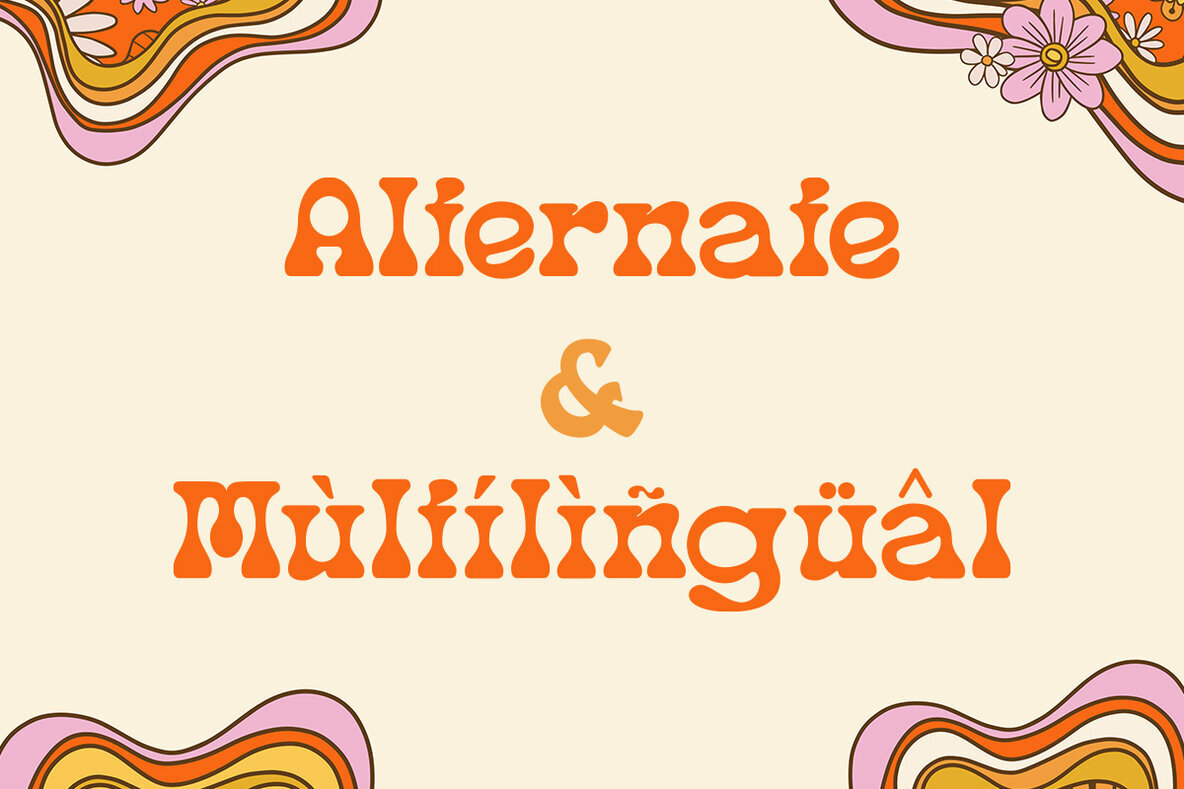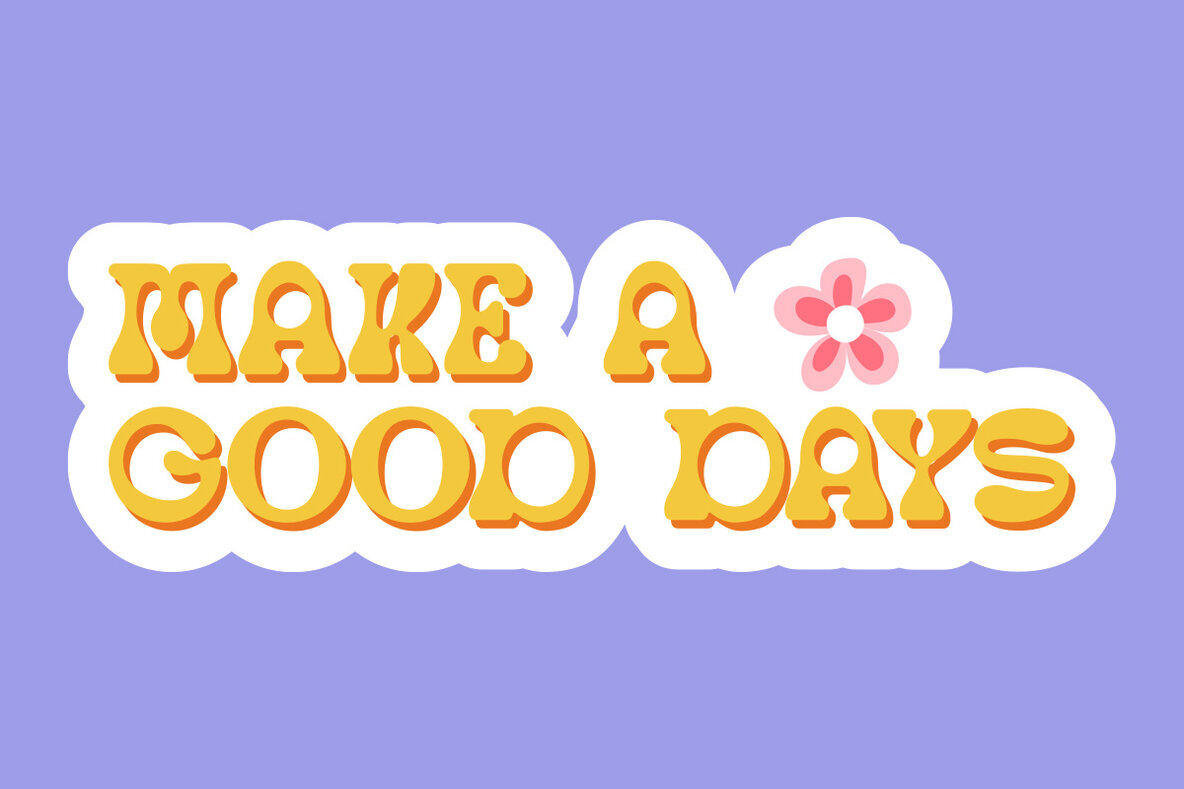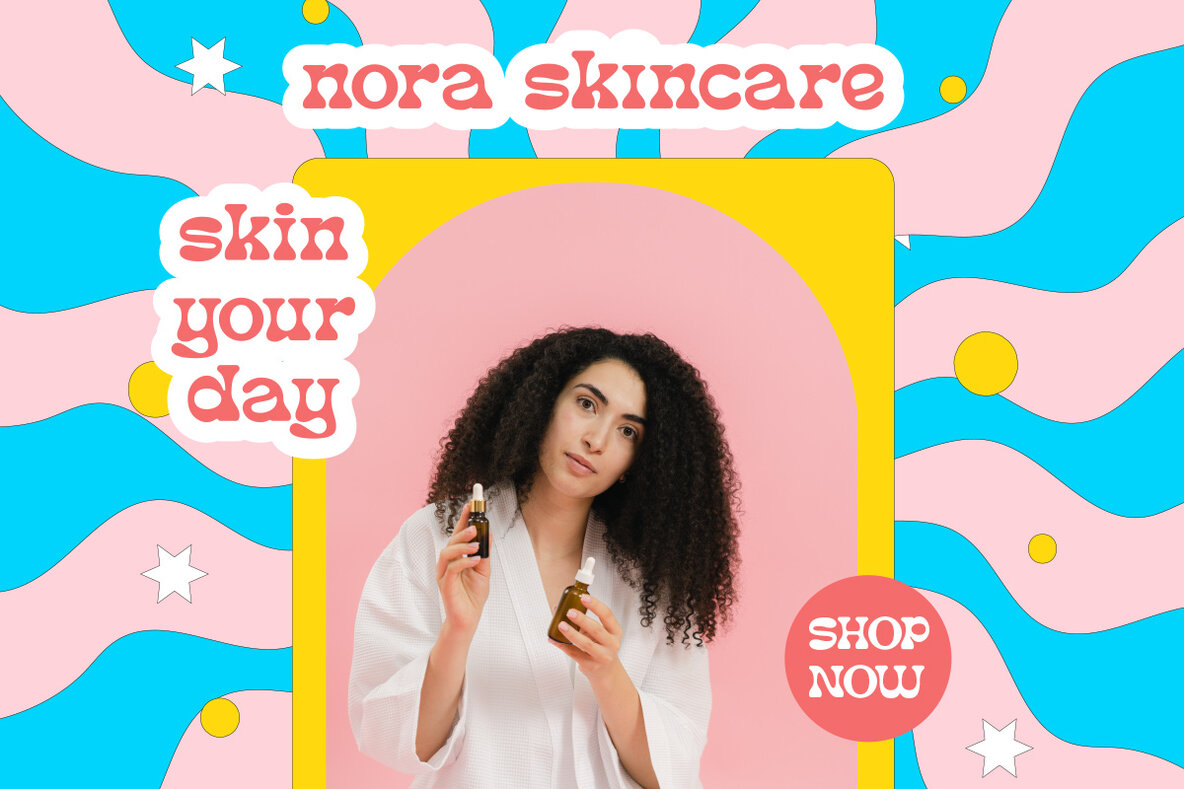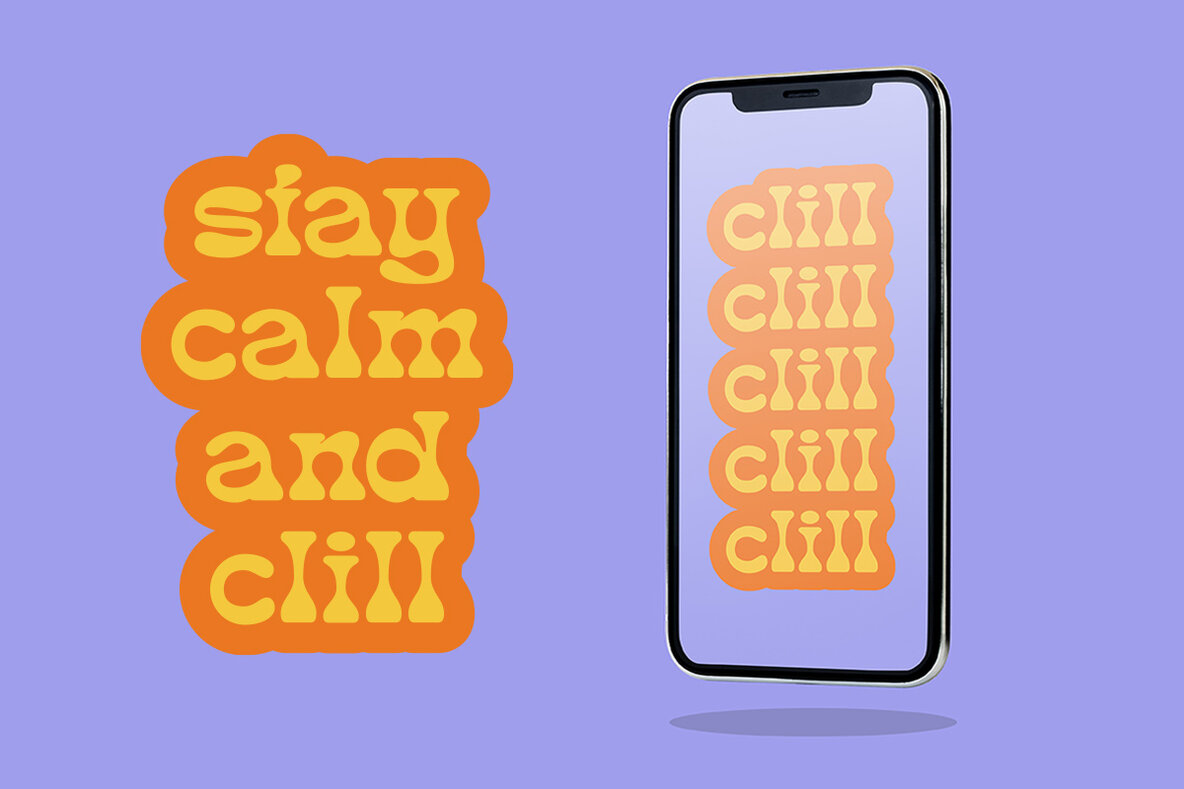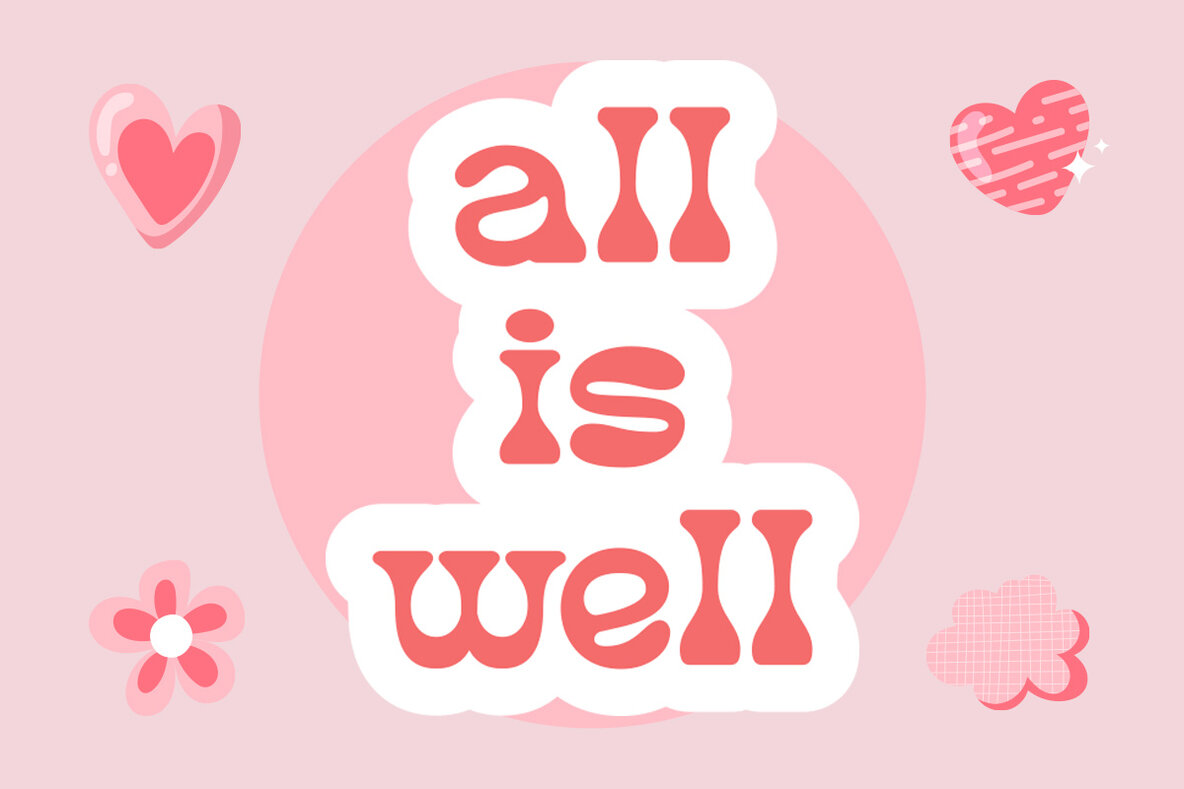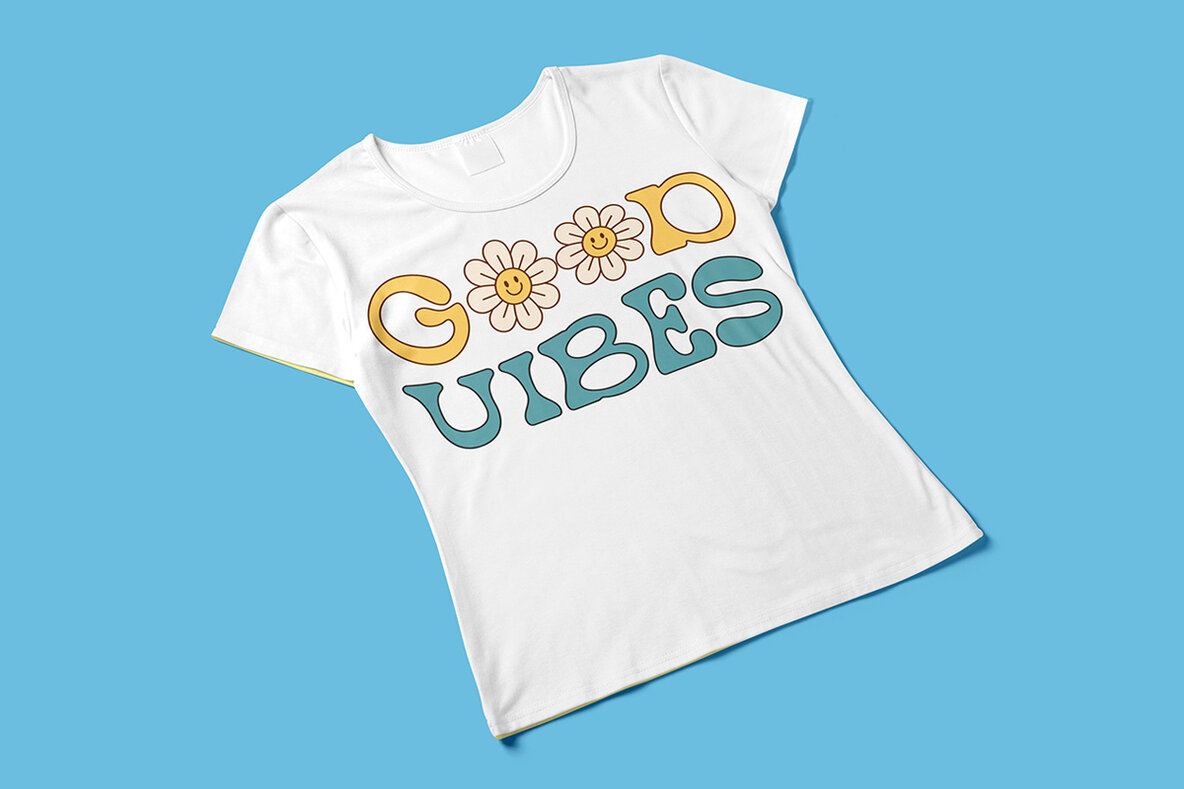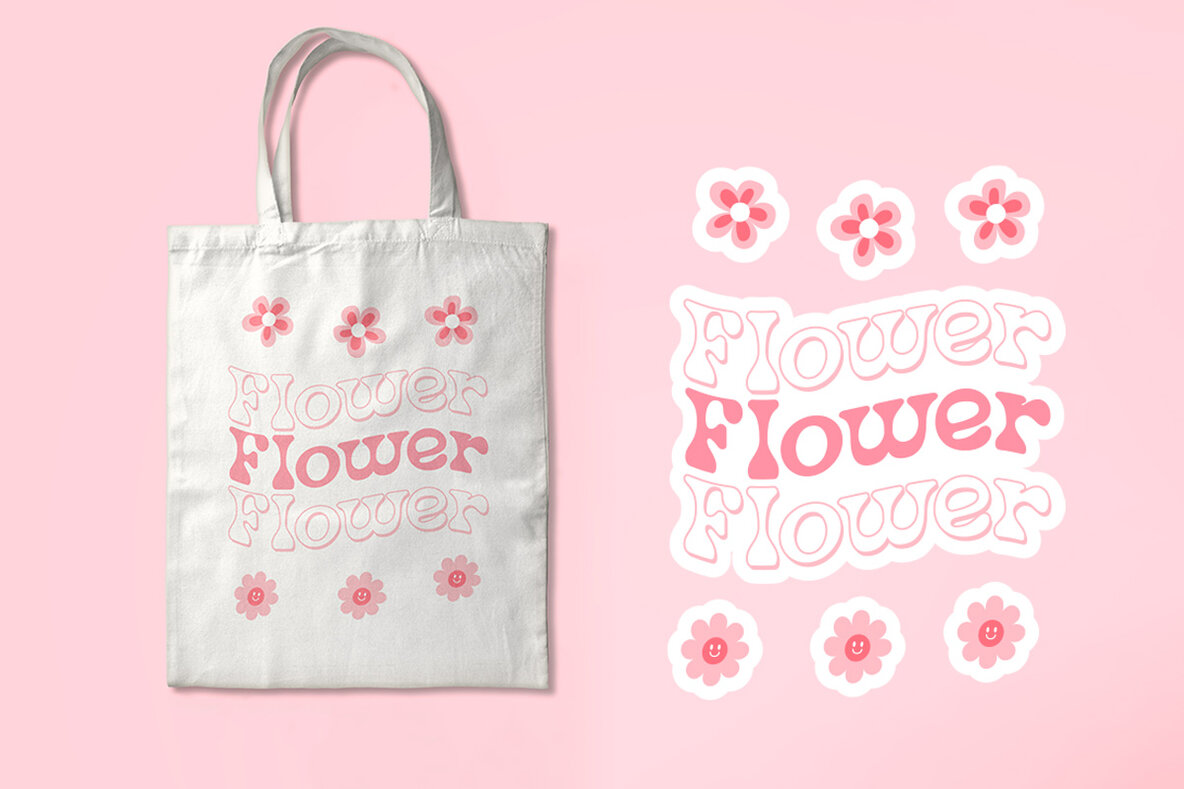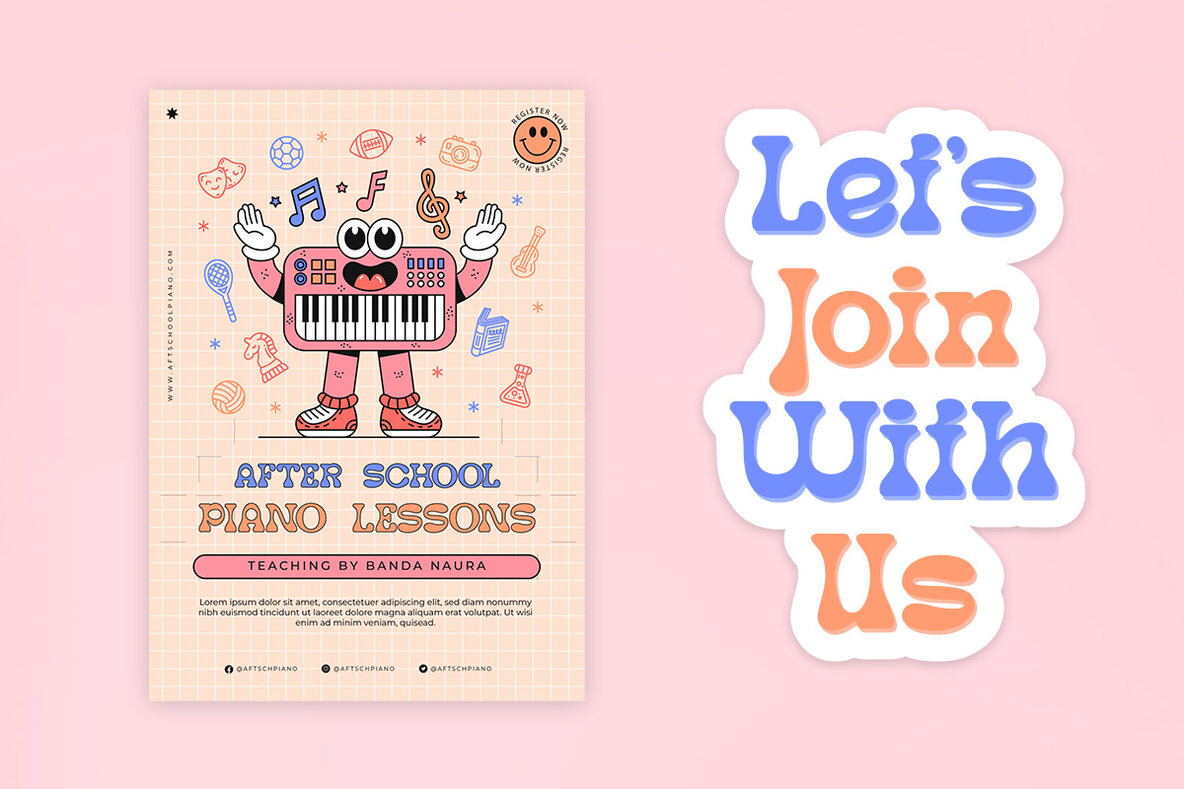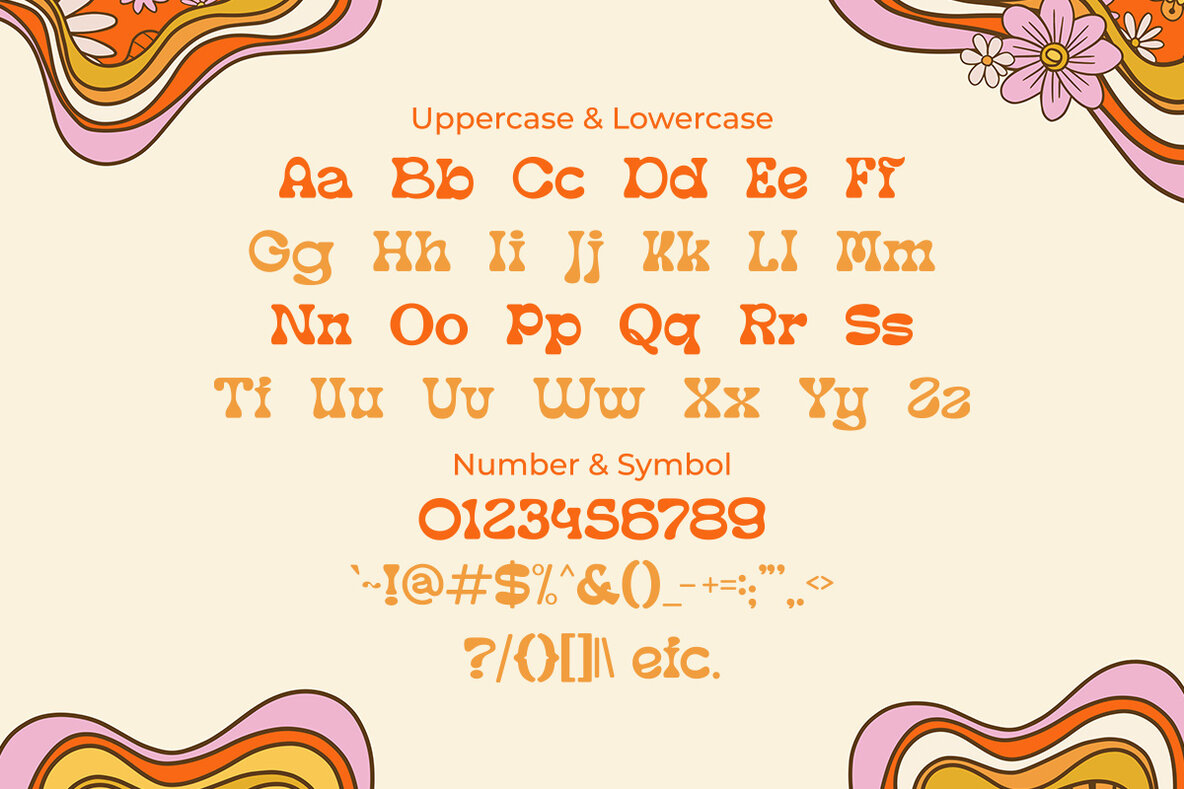
Mocking Font
Mocking Regular
Make a statement with the Mocking – Retro Groovy Font! Perfect for projects that need a playful and quirky touch, this font captures the essence of the groovy era of the 1960s and 70s. With bouncy curves and playful swashes, this font will make any design stand out. Featuring uppercase and lowercase letters, numbers, punctuation marks, alternates and international characters, it's incredibly versatile. Create unique posters for music festivals, design special events with a nostalgic vibe or add whimsy to your designs - regardless of your project, the Groovy Font is sure to bring a smile. Unlock endless possibilities today with Mocking – Retro Groovy Font from YouWorkForThem!